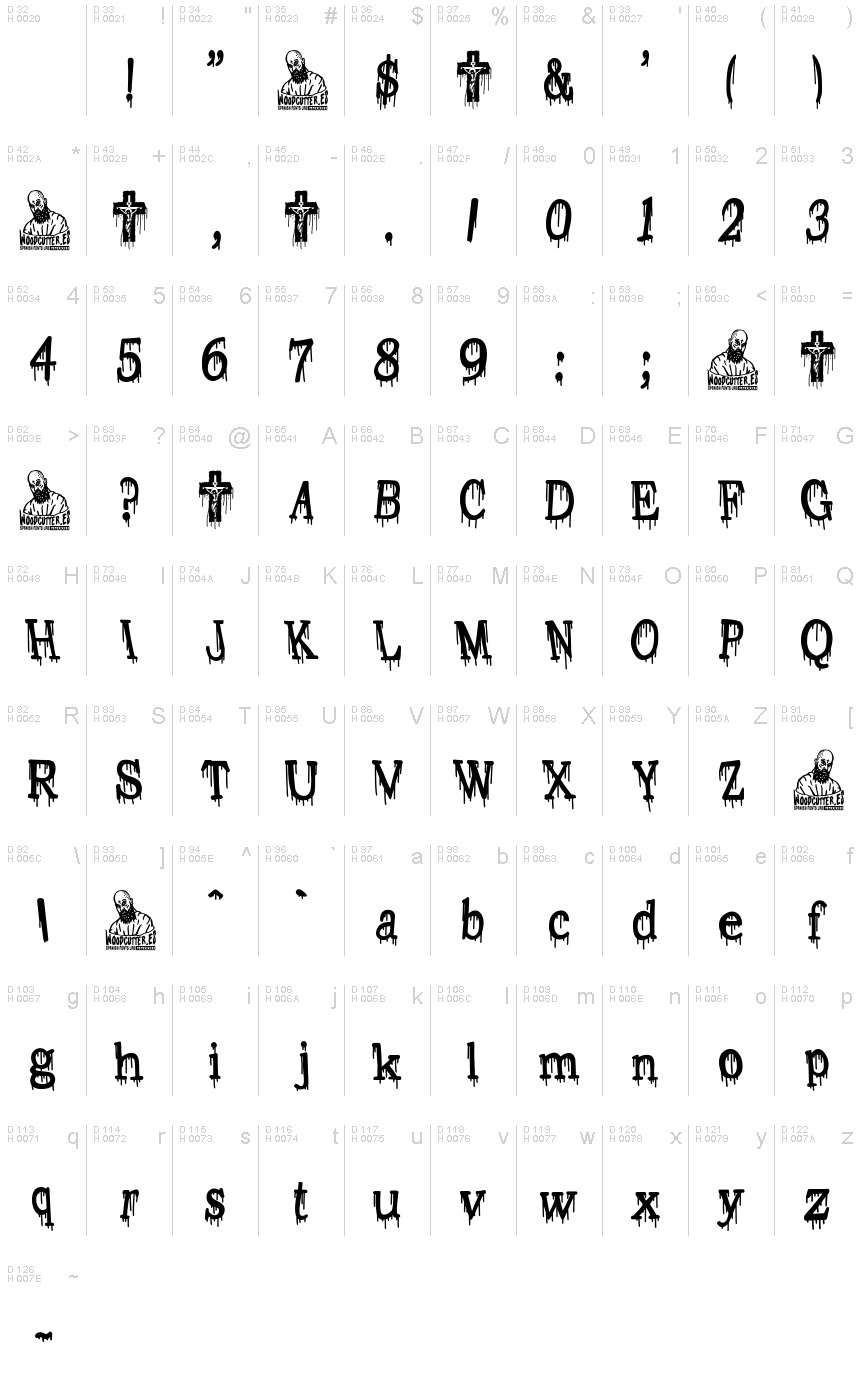
Sangre de Cristo
Sangre de Cristo, crafted by Woodcutter, evokes a thrilling sense of fright with its eerie design. The characters seem to crawl out of shadowy corners, perfect for sending shivers down the spine. Its bold strokes and jagged edges suggest a haunting presence, as if each letter harbors its own ghostly tale. Sangre de Cristo stands out in any context that calls for a touch of the macabre or supernatural.
The font's aesthetic is ideal for horror-themed projects, Halloween events, and any branding or artwork requiring a scary twist. It would make for striking book covers in the horror genre or give an unsettling edge to movie posters and game titles that aim to thrill and spook their audience. Sangre de Cristo ensures your message is not only seen but felt with an unmistakable chill.